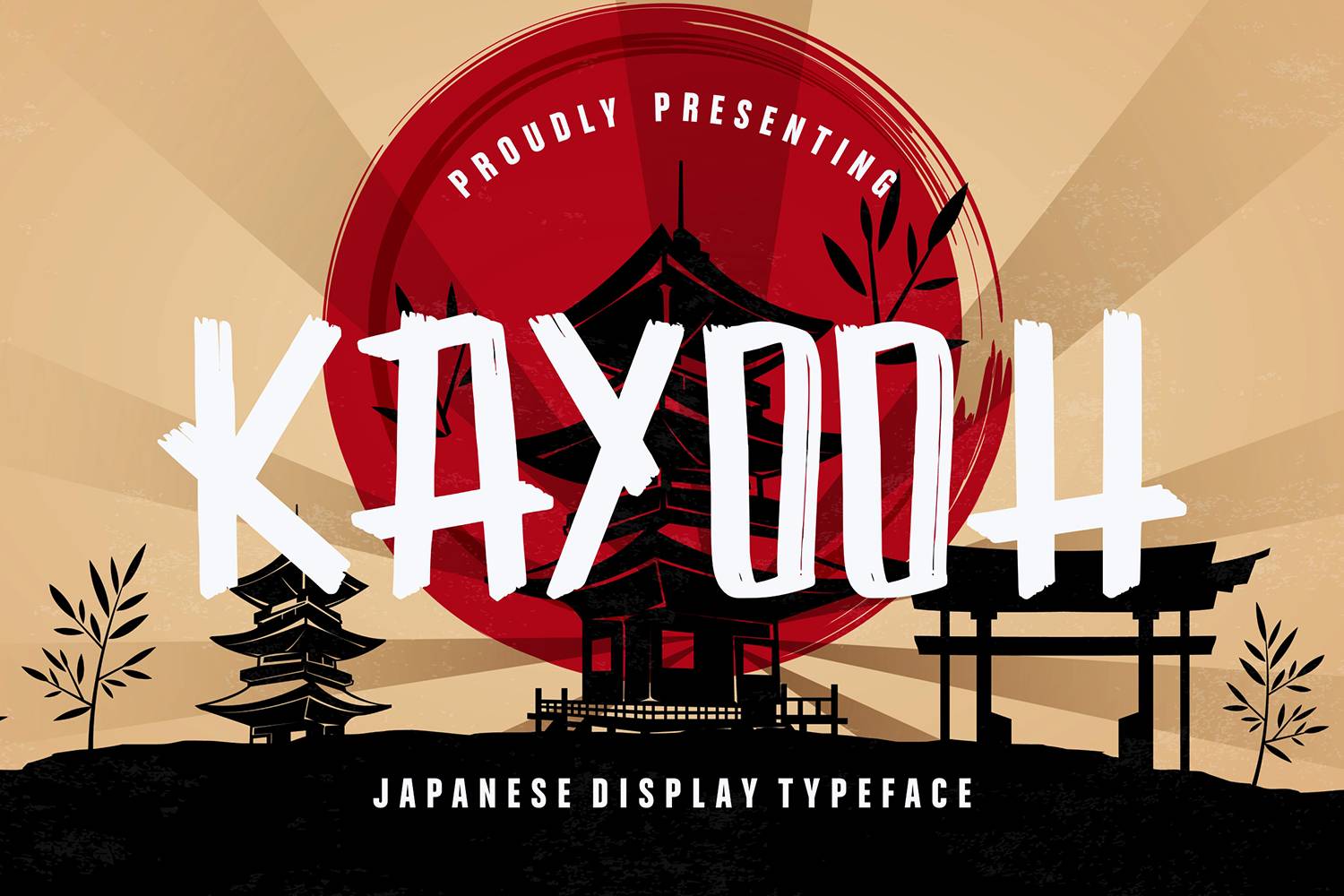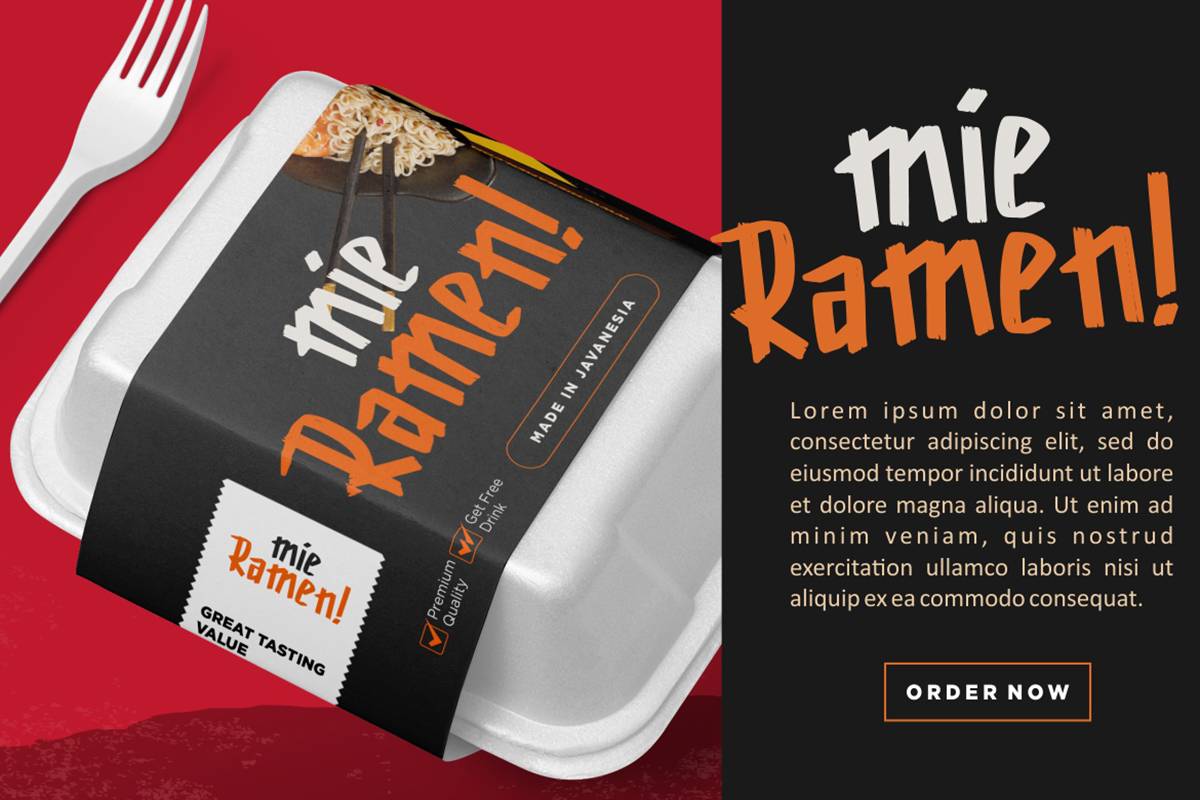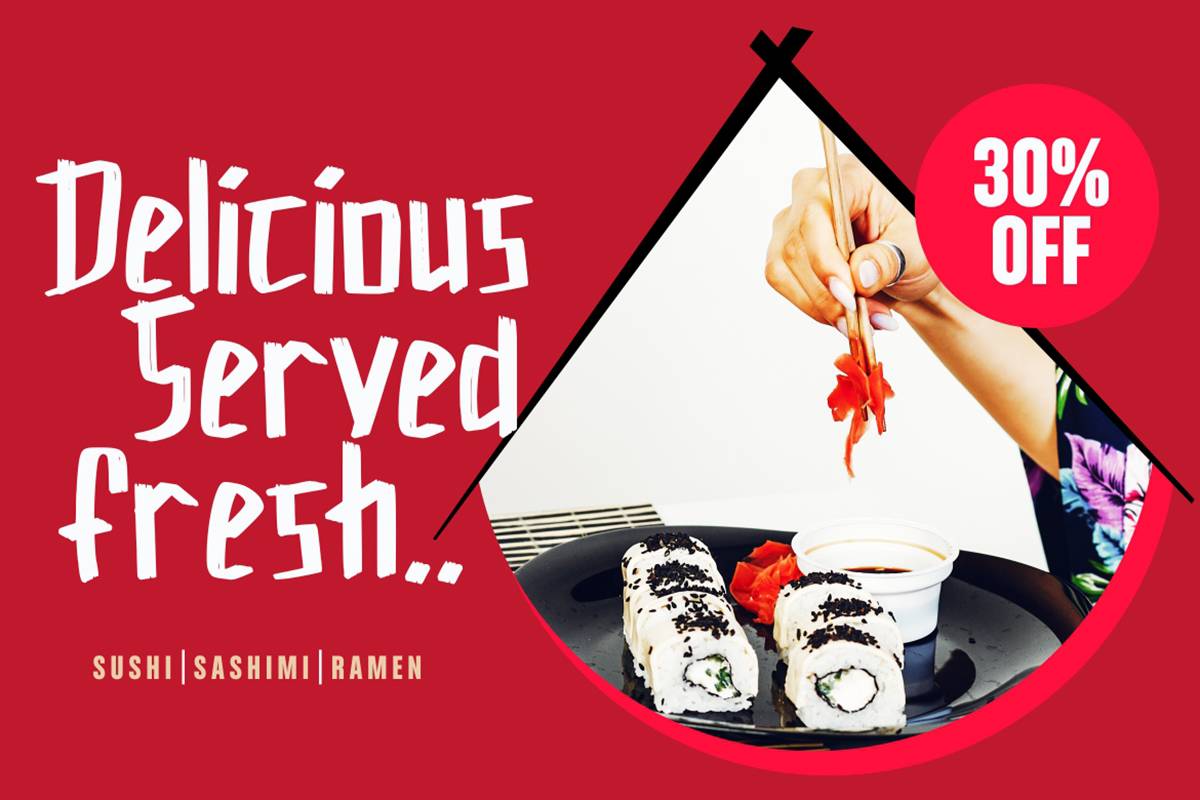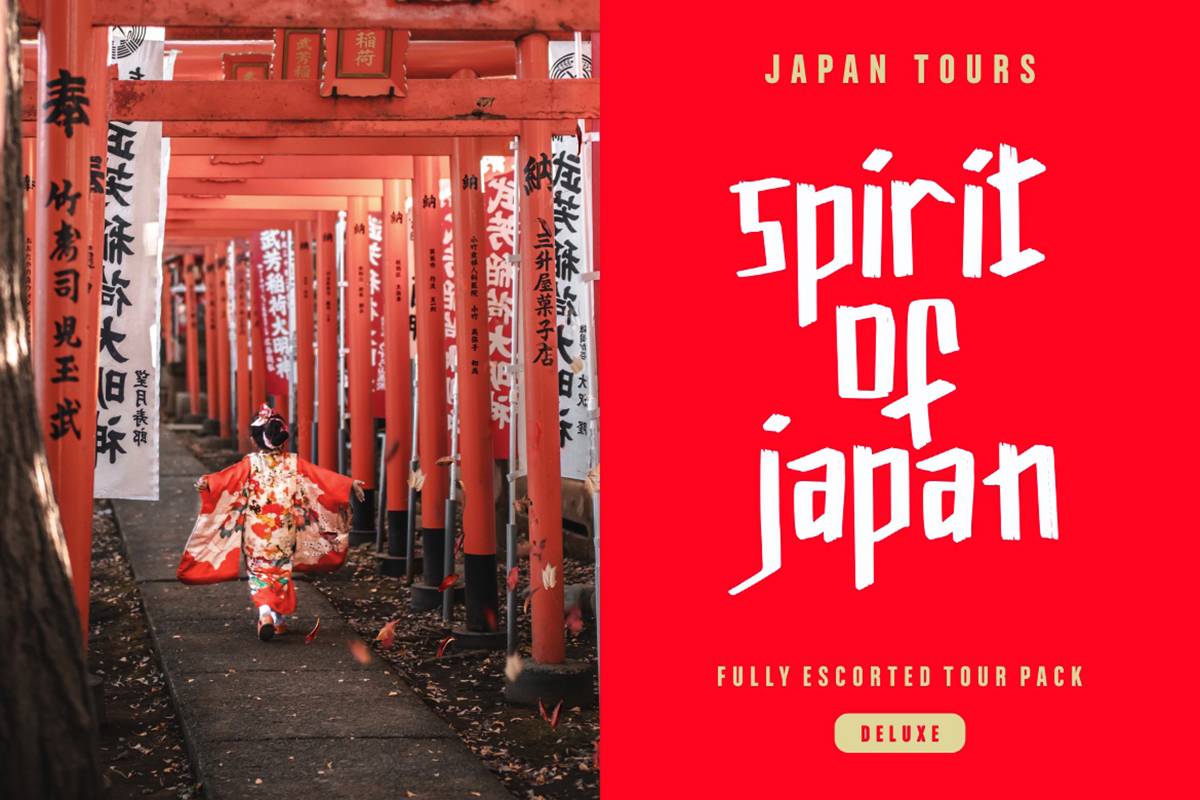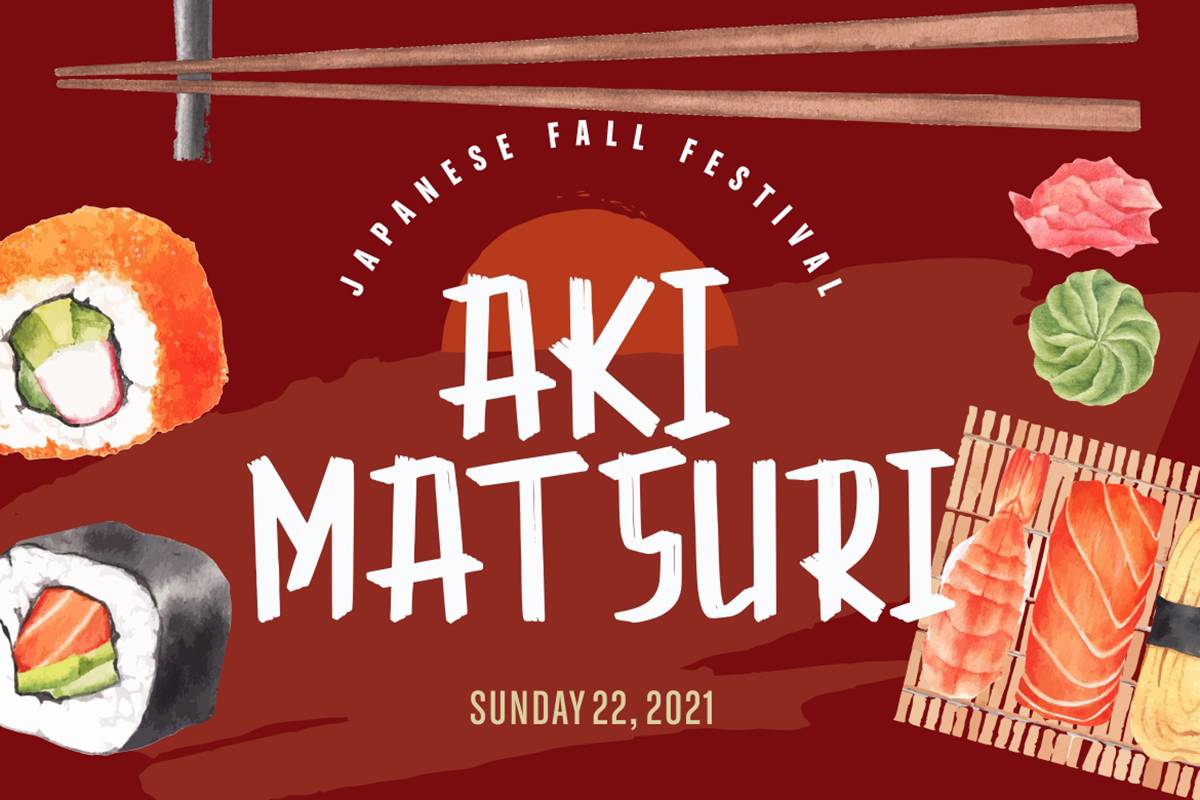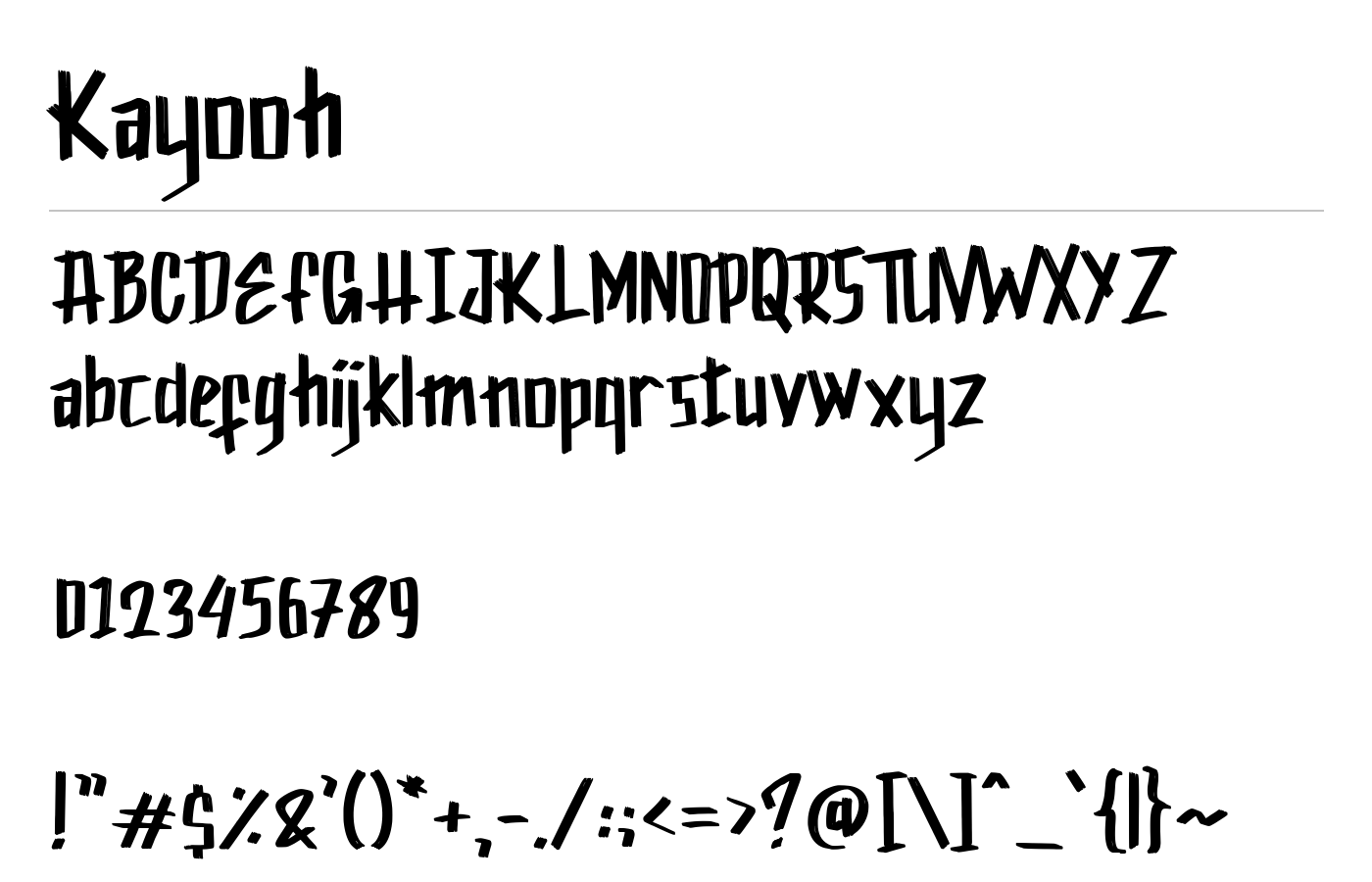
Kayooh is a bold, hand-drawn sans serif font with a playful and slightly rough textured style that suggests energy and creativity. Its irregular strokes and quirky letter shapes give it a casual, artistic feel ideal for informal branding, posters, or headlines where a distinctive, dynamic personality is desired. This font works well in creative projects that want to stand out with a unique, handcrafted look.
Kayooh Font
About Kayooh Font